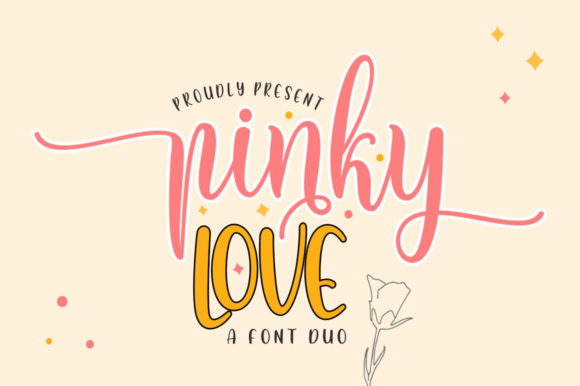
Introducing the Pinky Love Font Duo, a captivating collection of fonts designed to bring your creative visions to life! Created by the talented softcreative50, this modern handwritten font is perfect for those seeking a font for calligraphy that truly stands out.
With its two unique styles, the Pinky Love Font Duo offers a versatile range of options for your design projects. Whether you're aiming for an informal, romantic feel or a sweet and lovely touch, this font has got you covered. The carefully crafted design elements and hand-drawn typography lend a personal and artistic touch to any project.
Imagine the possibilities when you incorporate the Pinky Love Font into your designs. Whether you're working on magazine previews, captivating covers, logo designs, shirt designs, invitations, or greeting cards, this font will effortlessly elevate your creations to the next level.
Let your imagination run wild as you explore the endless potential of this font duo. The Pinky Love Font is not just a font - it's a tool that empowers you to express your emotions, captivate your audience, and leave a lasting impression. Its unique charm and versatility make it a go-to choice for graphic designers, artists, and creatives alike.
Don't settle for ordinary fonts when you can have the extraordinary. The Pinky Love Font Duo is your ticket to creating designs that evoke emotions, inspire action, and make a statement. Step into a world of endless possibilities and let your designs speak volumes.